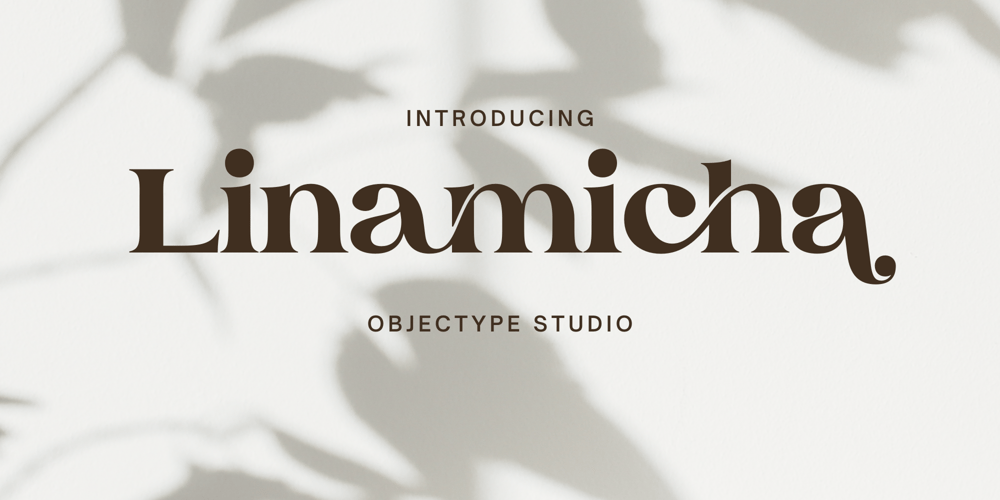
Linamicha
Linamicha font
Linamicha Font Family was designed by Candi Erwanto and published by Objectype. Linamicha contains 1 styles and family package options. Font Michaelina is a type of serif font that combines the elegance of traditional serif with a fresh modern touch.With features including uppercase and lowercase letters, numbers, punctuation, as well as accented characters for international designers, this font provides flexibility in expressing ideas and messages artistically.In addition, the alternative ligature feature adds a special touch to the text display, making Michaelina font an appealing choice for design projects that require attention to detail.With its elegant design and comprehensive features, the Michaelina font is suitable for creating captivating, classy, and unique designs.